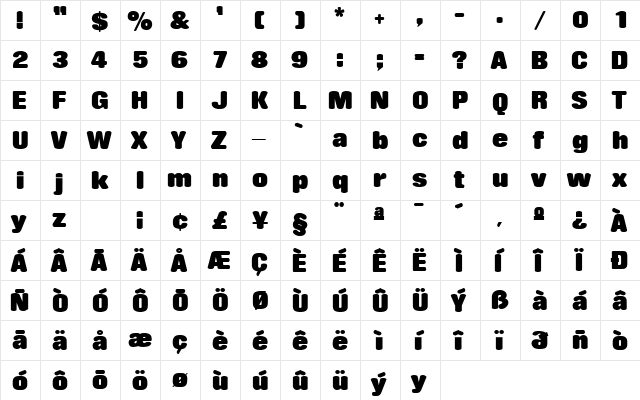
Rhythm Regular
Design Context for Rhythm Typeface
Rhythm offers clean, dependable letterforms without strong stylistic allegiance, making it a practical choice for designers who need flexibility.